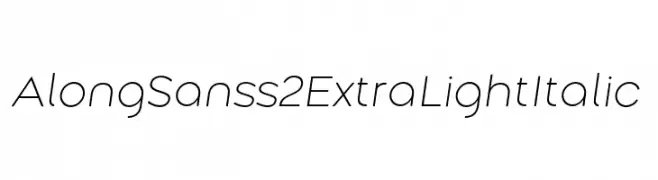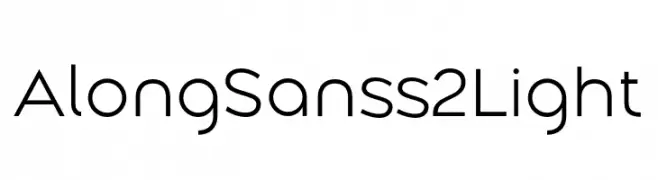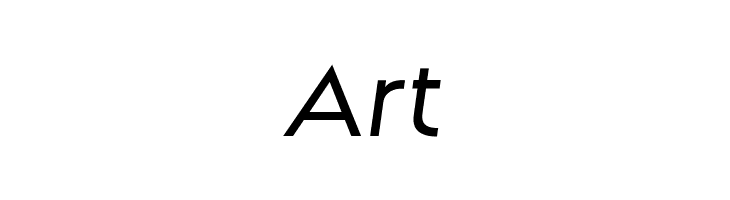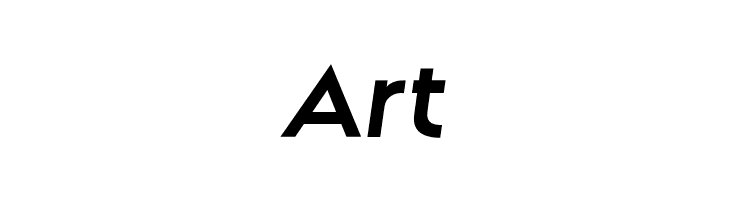
A modern, light sans-serif font with clean lines and balanced proportions.
A modern, italic sans-serif font with clean lines and balanced proportions.
A modern, semi-bold italic typeface with clean lines and versatile design.
A bold, modern sans-serif font with geometric influences.
A modern, extra light italic sans-serif font with clean lines and a refined aesthetic.
A bold, geometric sans-serif typeface with a modern and assertive style.
A thin, italicized sans-serif font with a modern and elegant style.
A bold, italicized sans-serif font with a modern and dynamic style.
A modern, geometric sans-serif font with uniform strokes and clear legibility.